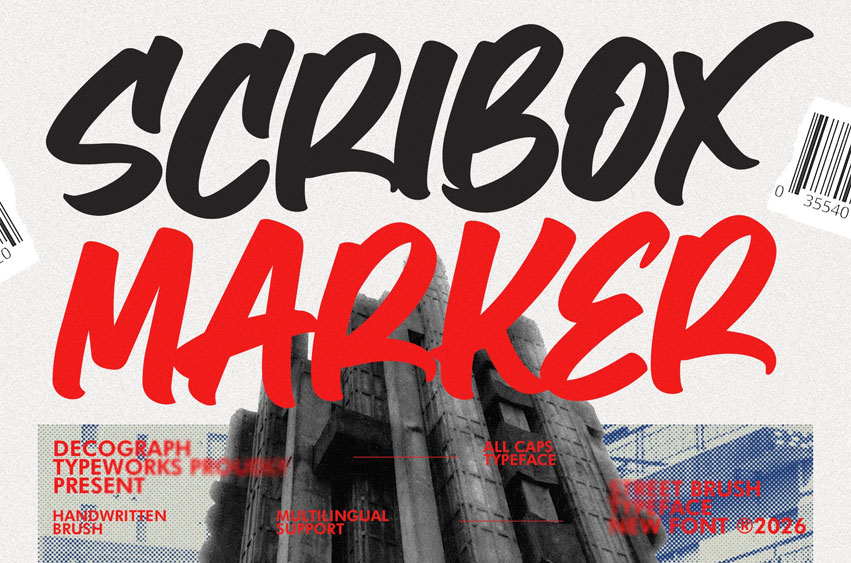
Scribox Marker Font
Scribox Marker Font Bold Brush Display Font is an expressive handwritten typeface inspired by bold marker strokes and street-style lettering. Its thick shapes, rough edges, and dynamic flow create a raw and energetic character that feels modern, edgy, and highly impactful. The natural brush texture enhances its authentic handmade look while keeping strong readability.